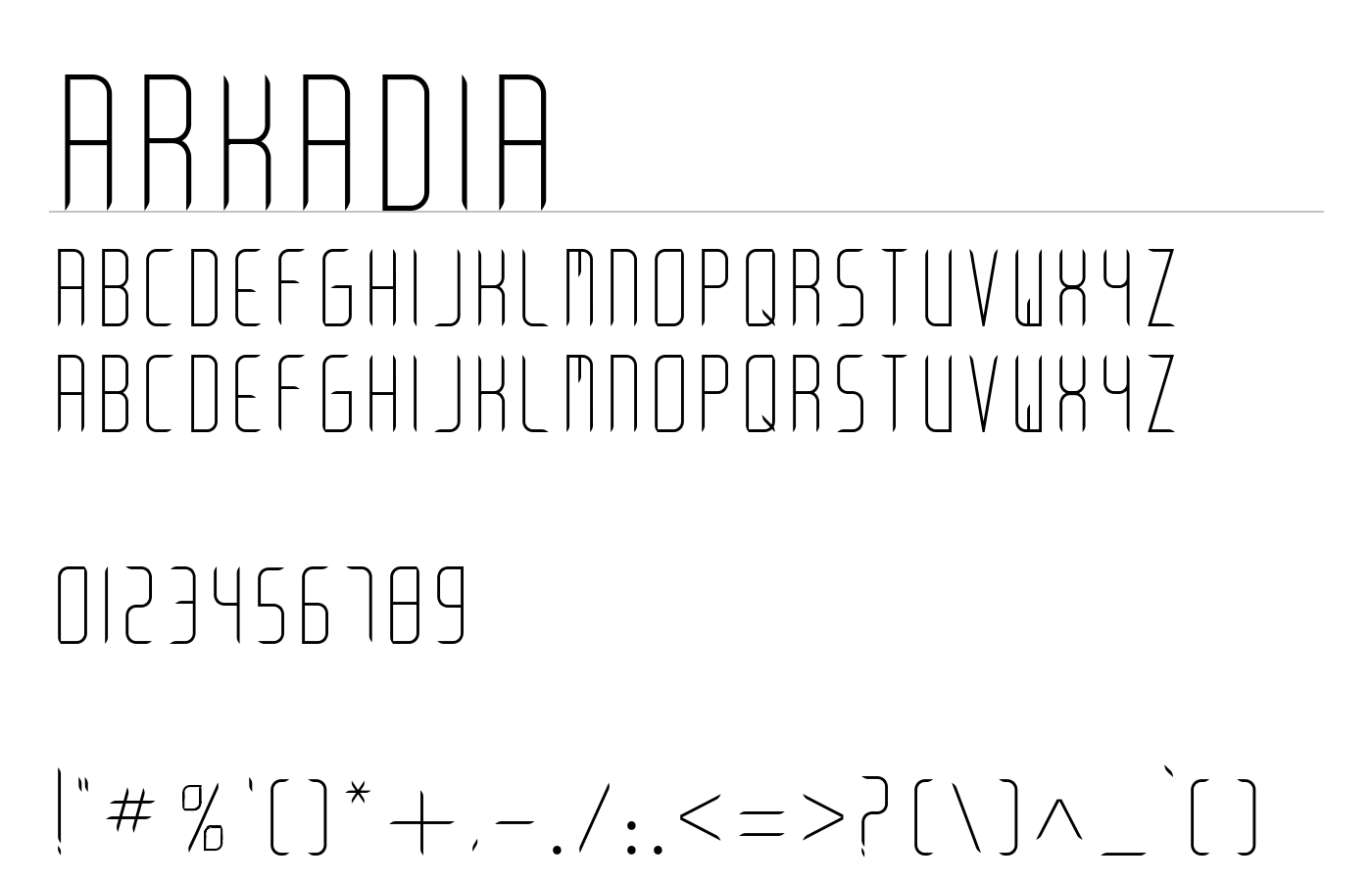
Arkadia is a tall, slender sans serif font with a modern and minimalist design, characterized by its narrow letterforms and fine, consistent stroke weight. Its clean lines and subtle geometric touches lend it an elegant yet approachable feel, making it ideal for sleek branding, contemporary editorial work, and stylish headlines that require a sophisticated and futuristic aesthetic.
Arkadia Font
About Arkadia Font